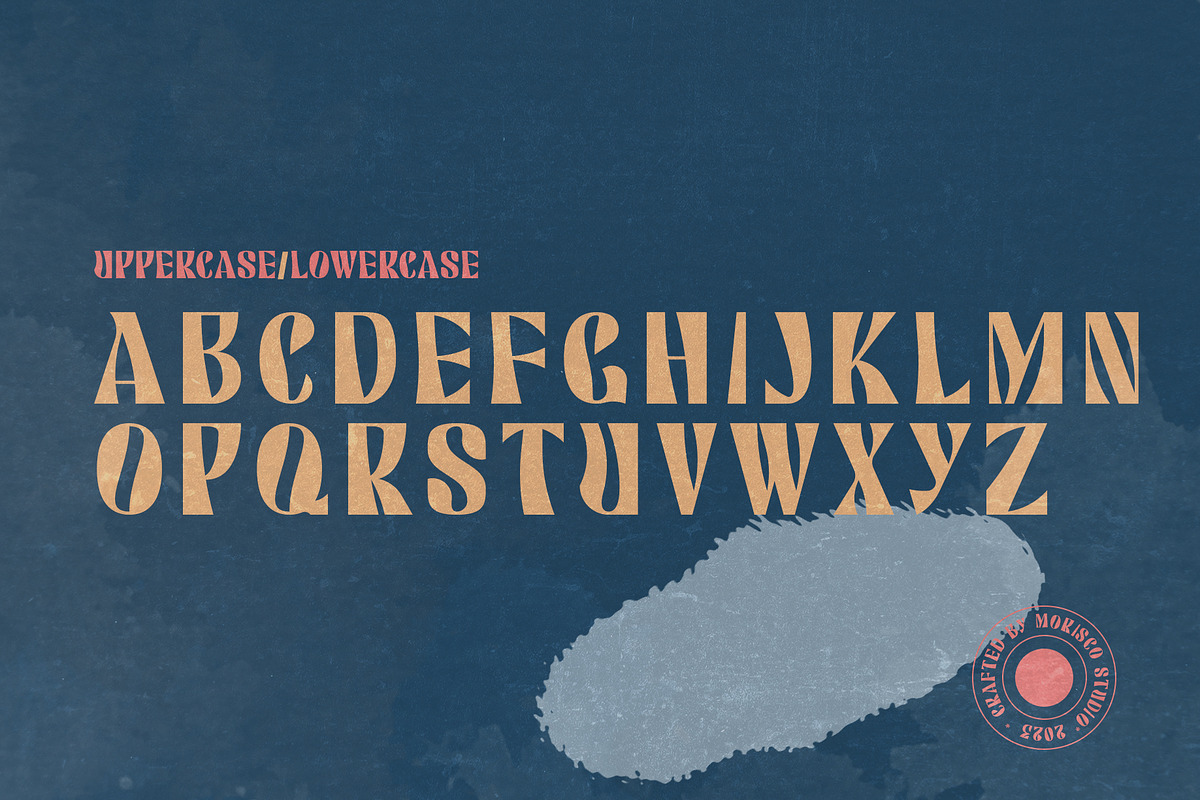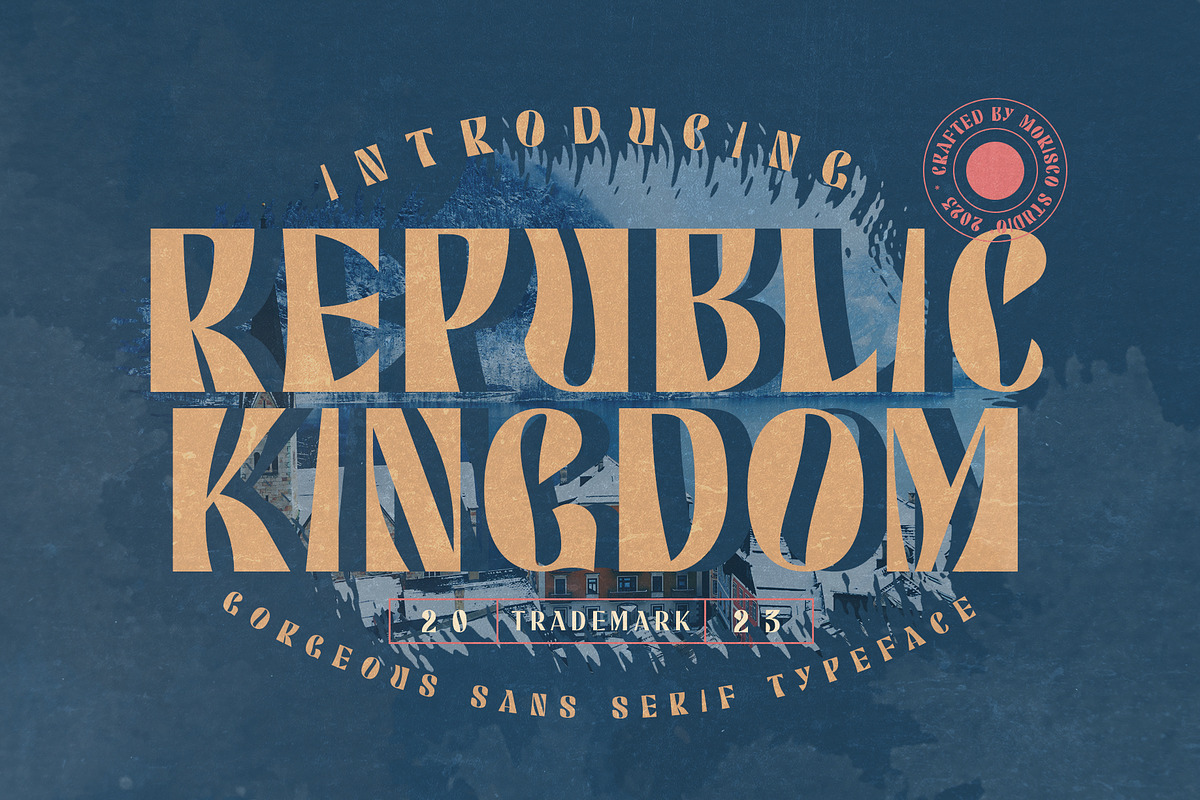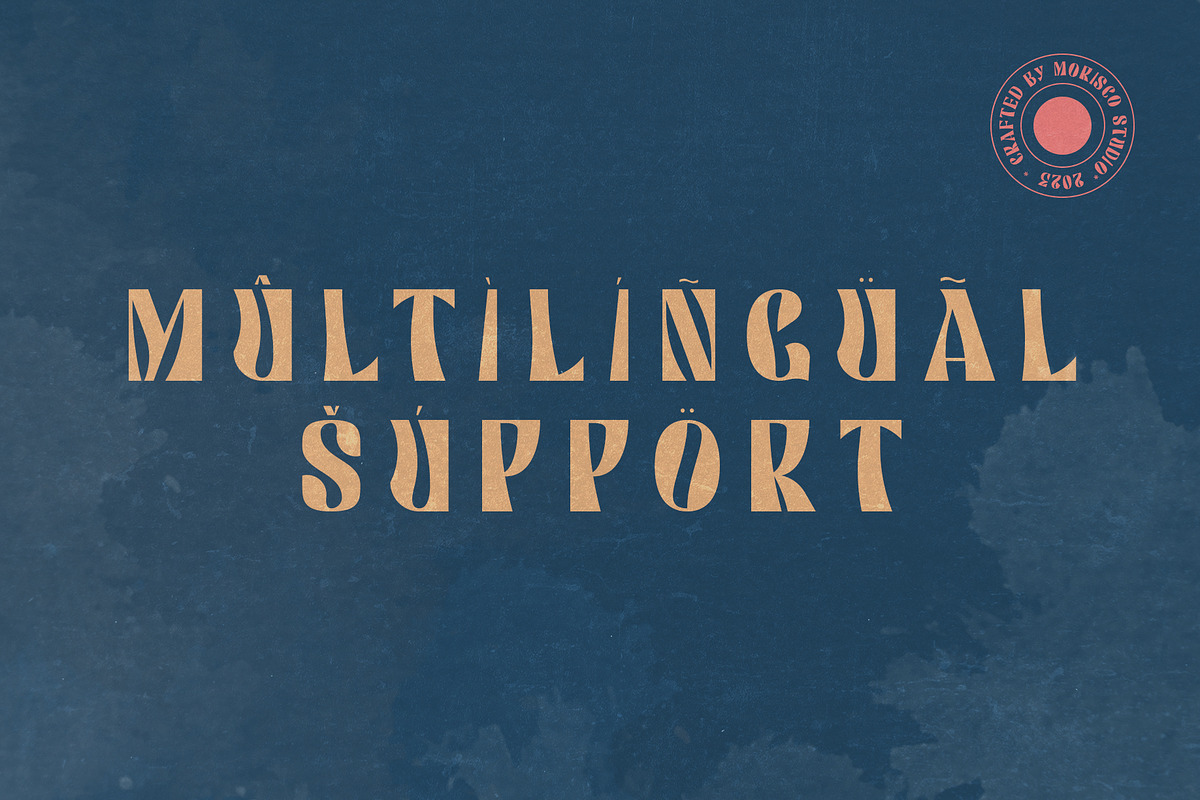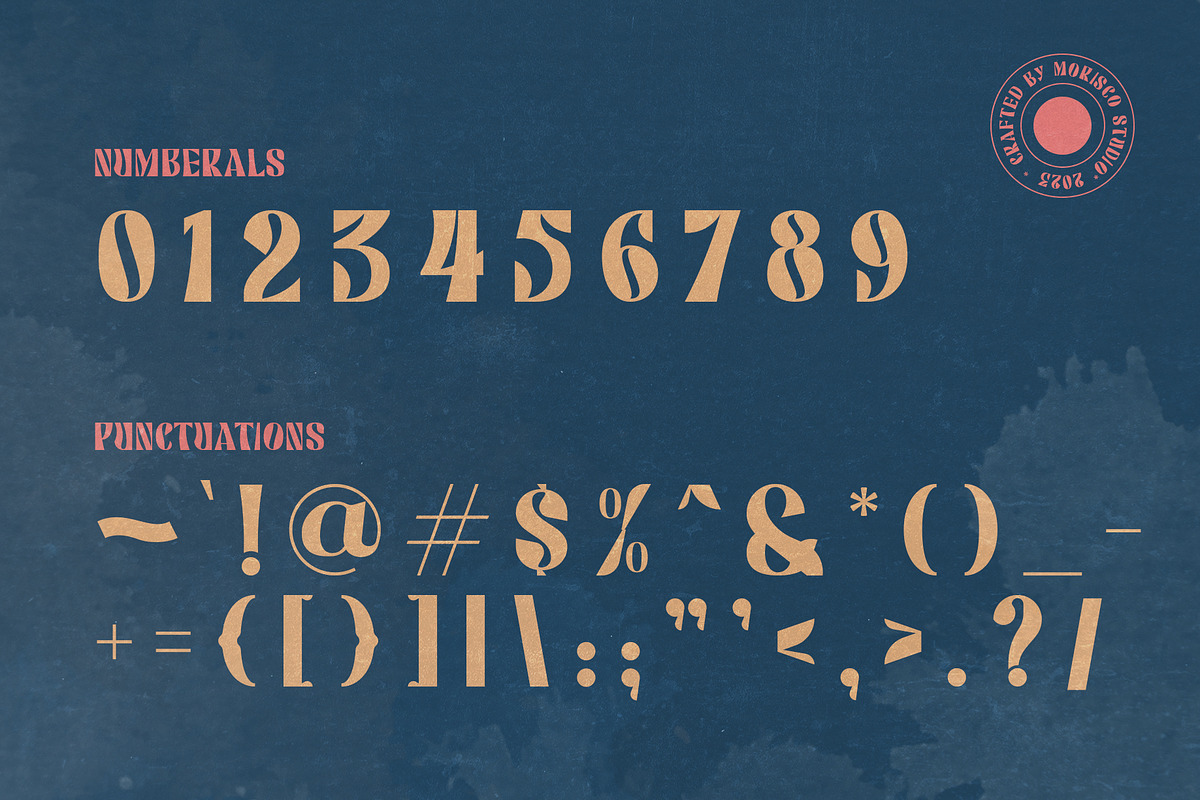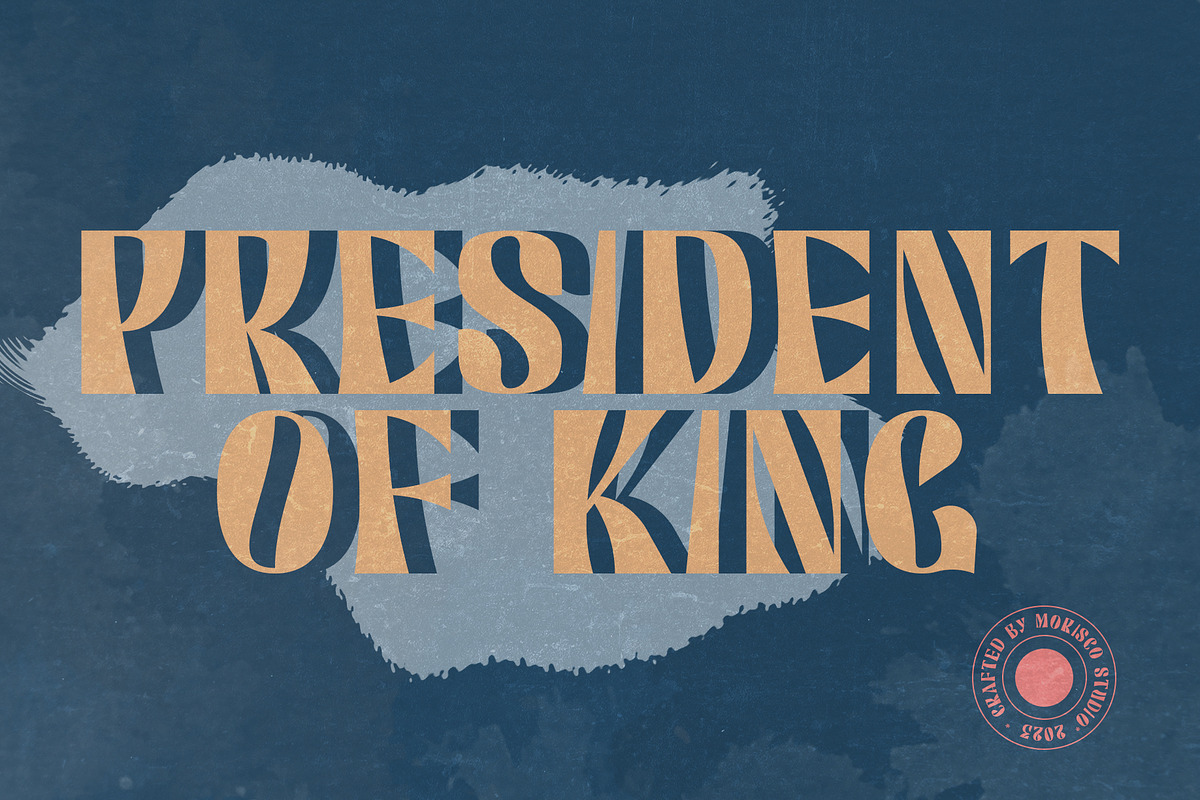
Republic Kingdom
Republic Kingdom is a modern font with a unique character designed by morisco studio. This font, well-suited for headline and any project, like branding, print template, logo and more.